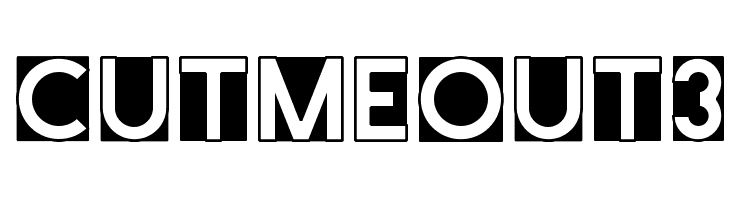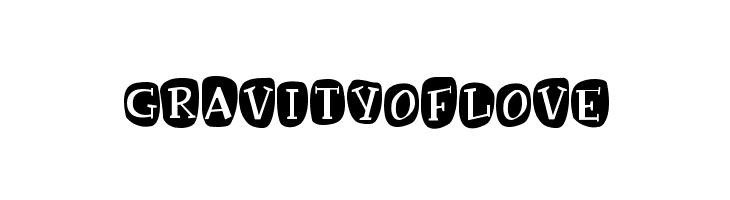
( Fonts by Docallisme HAS )
A bold, playful font with a 3D shadow effect and blocky, enclosed letters.
A playful, hand-drawn font with characters enclosed in bold, irregular boxes.
( Fonts by Darcy Baldwin )
A bold, decorative font with characters enclosed in tag-like shapes.
( Fonts by Darcy Baldwin )
A bold, decorative font with characters enclosed in tag-like shapes.
A bold, geometric font with a cut-out style, enclosed in square outlines.
Bold, geometric font with high contrast and enclosed characters.
( Fonts by Maelle.K | Thomas Boucherie )
A playful, bold font with characters enclosed in rounded black shapes, ideal for creative projects.
( Fonts by Darcy Baldwin )
A playful, bold font with characters enclosed in black circles, offering a unique and decorative style.
( Fonts by Khrys Bosland )
A playful, gear-enclosed font with an industrial theme.